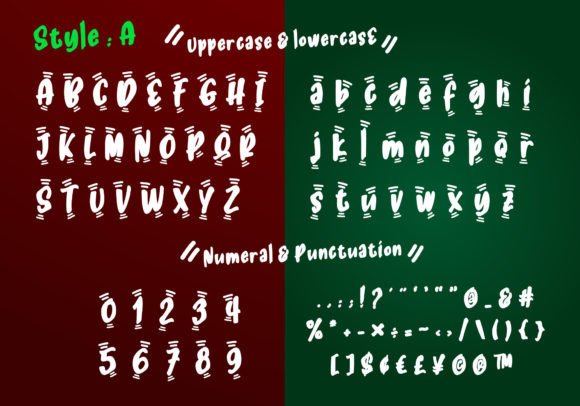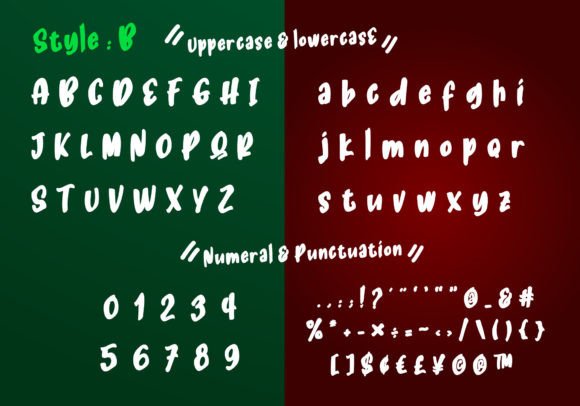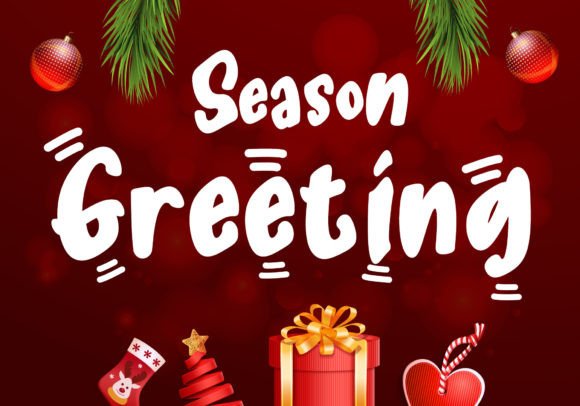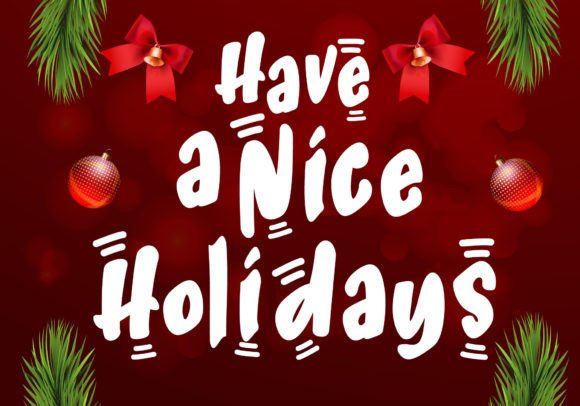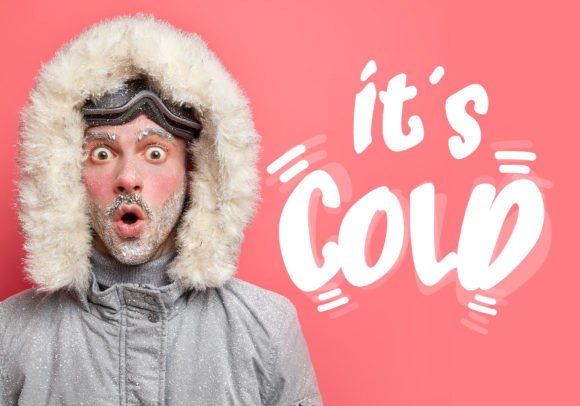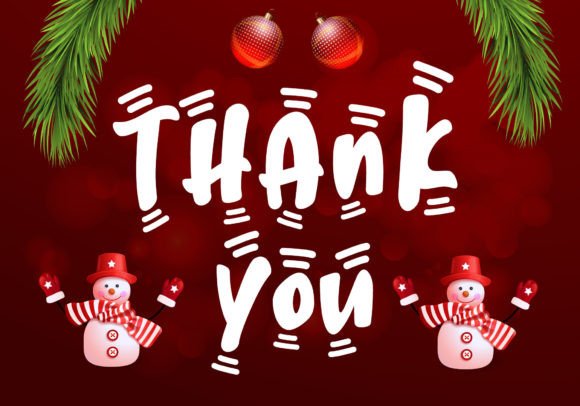
Introduction to Season Shake Font
Remember the rush of excitement you felt when working on your first big creative project? The feeling of freedom and limitless possibilities is what drives many designers to push the boundaries of their art. For those who crave that same energy, there’s a new design resource that’s about to shake things up – literally.
Meet the Season Shake Font, a cartoon-style display font that’s bursting with personality and a great punch. Its bold, playful design is instantly recognizable, making it perfect for eye-catching social media posts, comic book style illustrations, and anything that requires youthfulness and courage. Whether you’re working on a love shirt, a poster, or a movie title, this font is sure to grab attention and leave a lasting impression.
Key Features of Season Shake Font
- High-quality design resource with a unique, playful style suitable for creative projects.
- Features a transparent background, making it easy to layer over images or other design elements.
- Designed with a bold, eye-catching aesthetic, perfect for adding a touch of whimsy to your designs.
Honest Review: Season Shake Font
- ✨ The unique, playful style of the font adds a fun touch to any design, making it perfect for creative projects that need a bit of personality.
- ✨ The transparent background makes it easy to customize and use in a variety of design contexts.
- ⚠️ The font may not be suitable for formal or professional projects, as its playful nature may not be taken seriously.
Overall, I’m impressed with the Season Shake Font. It’s a great resource for designers looking to add some personality to their creative projects. With its unique style and transparent background, it’s a versatile font that can be used in a variety of design contexts. Just be mindful of its limitations and use it accordingly.
How to Use Season Shake Font
The Season Shake Font is a high-quality design resource perfect for creative projects. It offers a unique, dynamic feel with its animated and transparent background capabilities.
Tips for Getting the Most Out of Season Shake Font
To maximize the use of Season Shake Font, consider the following tips:
- Experiment with different font sizes and colors to create a visually appealing design.
- Use the font’s animated capabilities to add a dynamic feel to your project.
- Combine the font with other high-quality design resources for a cohesive look.
The Season Shake Font is ideal for:
- Creating engaging social media graphics.
- Designing animated presentations and videos.
- Adding a unique touch to websites and blogs.